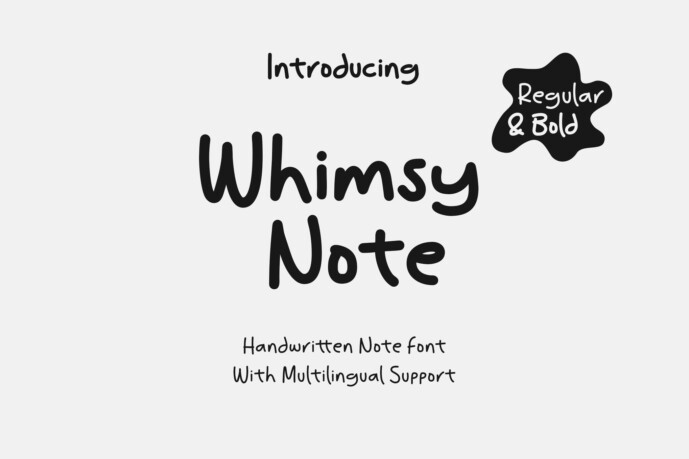
Whimsy Note – A Handwritten Font Full of Personality
Whimsy Note is a warm, expressive handwritten font that feels like it came straight from the pages of a personal journal. Inspired by heartfelt notes, spontaneous doodles, and unsent love letters, each letter carries a touch of human charm. Perfect for branding, invitations, quotes, or any project that needs a personal, authentic feel. Whimsy Note isn’t just a font—it’s a little piece of handwriting with a story to tell.
- Available in 2 styles, regular and bold
- Multilingual Support